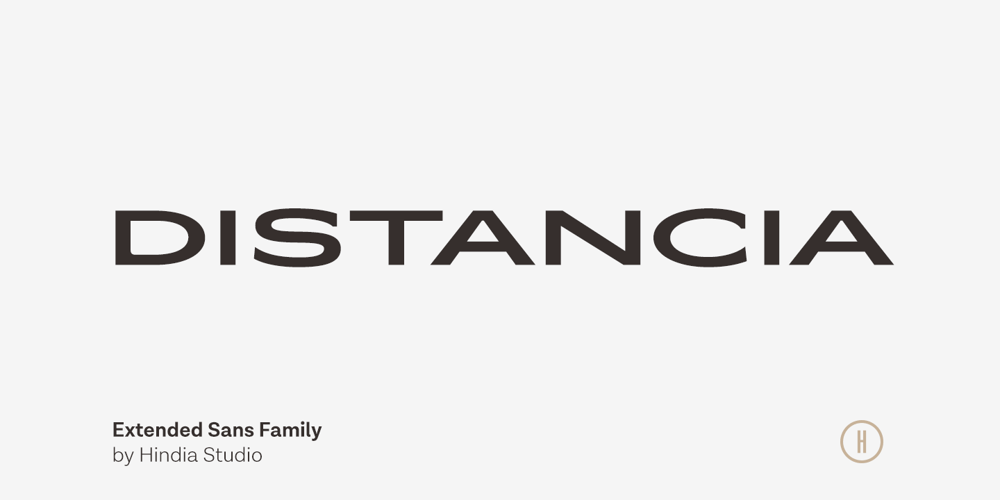
Distancia Font Family was designed by Tulus Driyo and published by Hindia Studio. Distancia contains 11 styles and family package options. Distancia is a super-extended sans family of six weights. Inspired by stunning 70’s sports cars advertisement, this typeface is designed for sheer elegance and casual experience. Distancia has its own particular friendly and warm appearance of modern touch. With its extensive and open proportions, it makes a grand appearance for your projects.